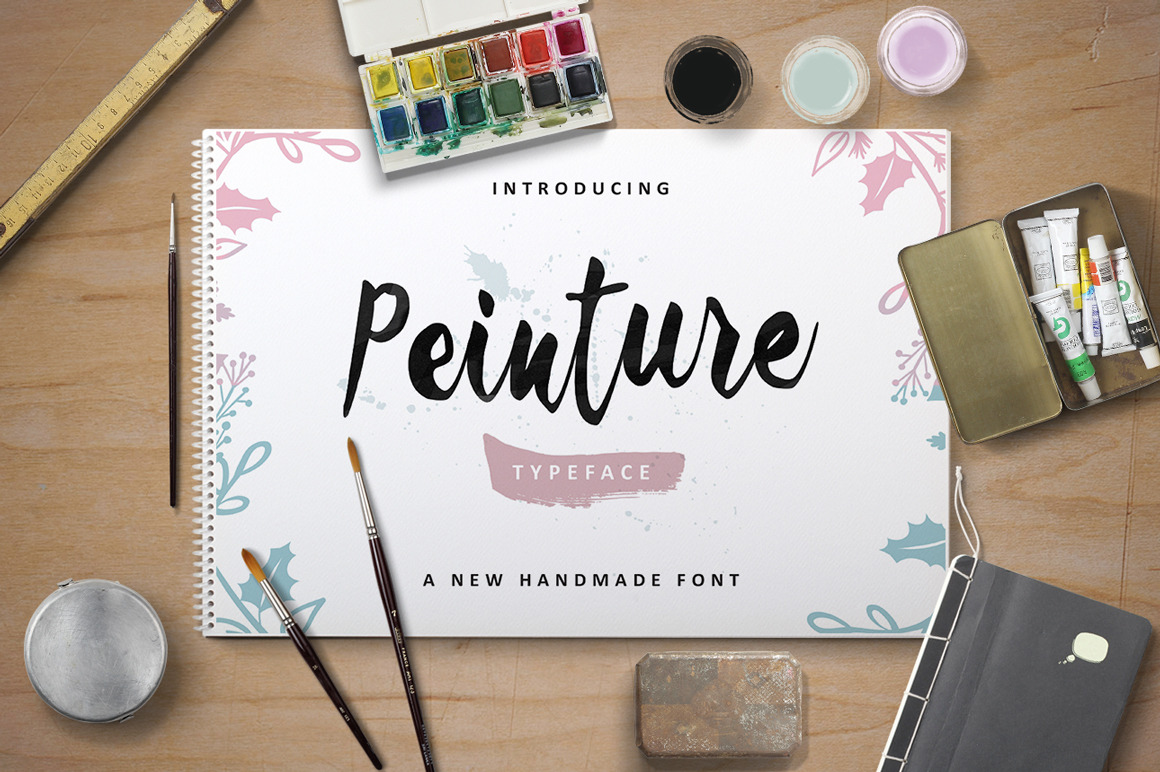
Peinture Typeface
Peinture Typeface is a New Handmade Font. Peinture Typeface is suitable for Apparel Brand, any greeting cards, Painting design style, or any design that needs natural and personal touch. Mix and match the alternate characters to add an attractive message to your design.
253 glyphs and alternate character contain with opentype features. Stylistic alternates, Ornament, Swash and more.You can access all those alternate characters by using OpenType savvy programs such as Adobe Illustrator and Adobe InDesign.